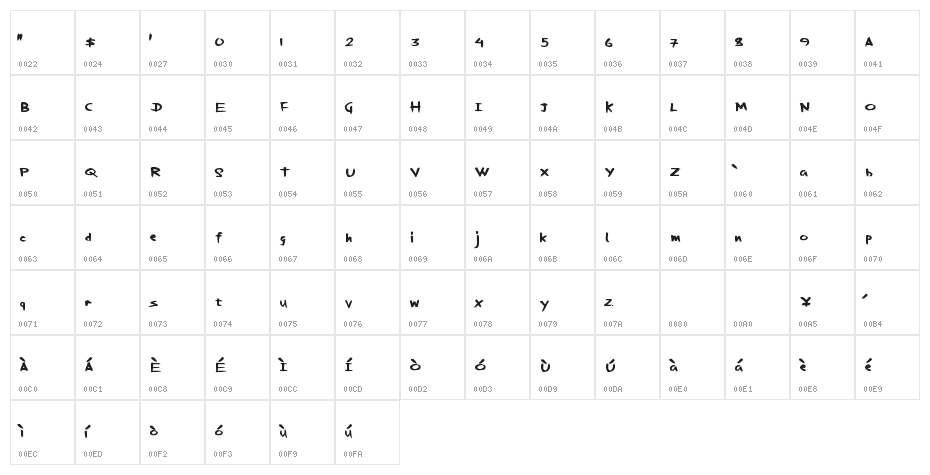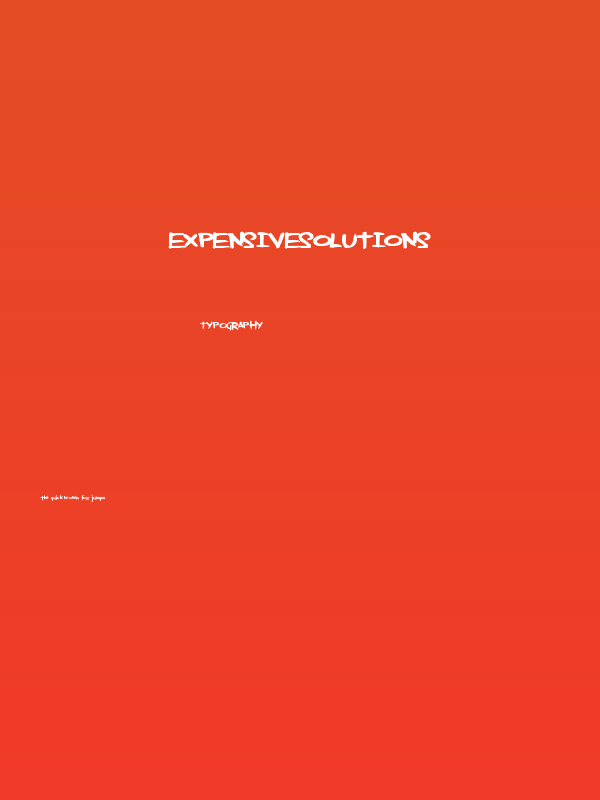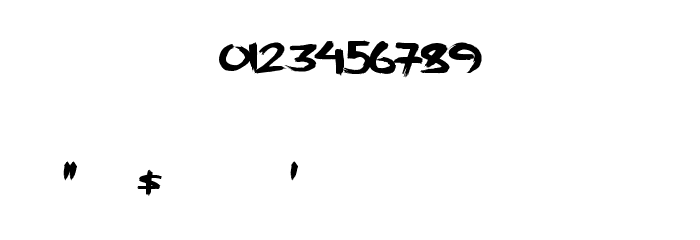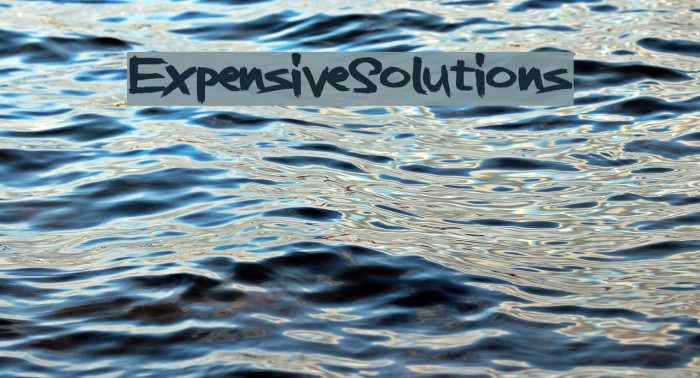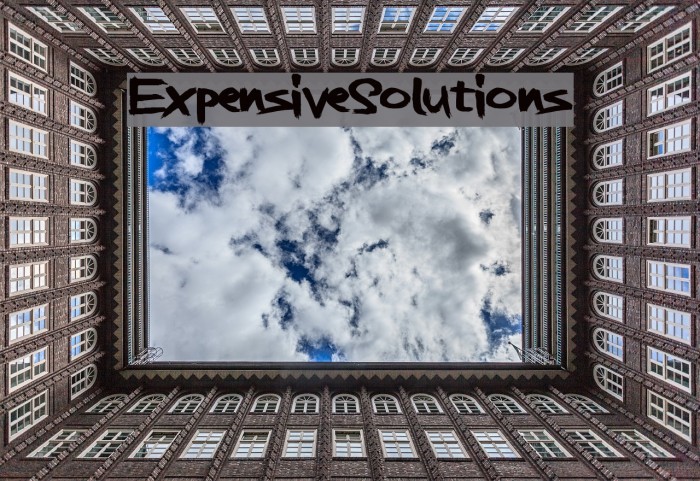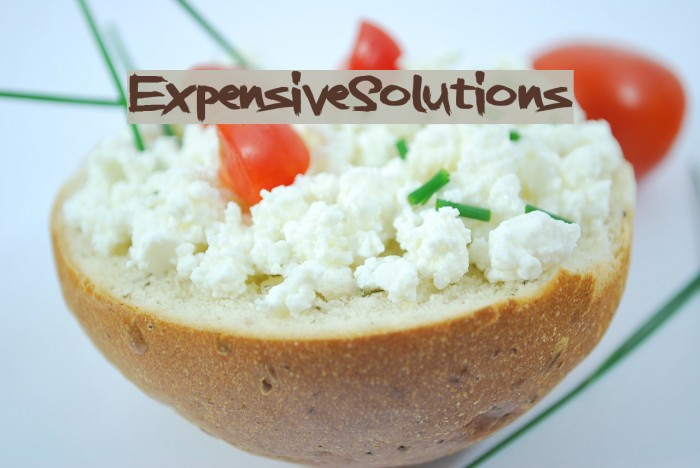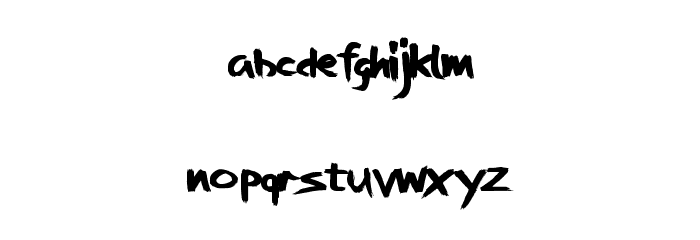
ExpensiveSolutions Font
ExpensiveSolutions Description
This font features a bold, dynamic style with a hand-drawn appearance, characterized by uneven strokes and a slightly jagged edge. The uppercase letters are particularly striking, with a sense of movement and energy that suggests a graffiti or street art influence. The lowercase letters maintain this energetic style, offering a cohesive look across the alphabet. Numbers and special characters follow the same design principles, ensuring consistency throughout. The overall impression is one of boldness and creativity, making it ideal for projects that require a strong visual impact.